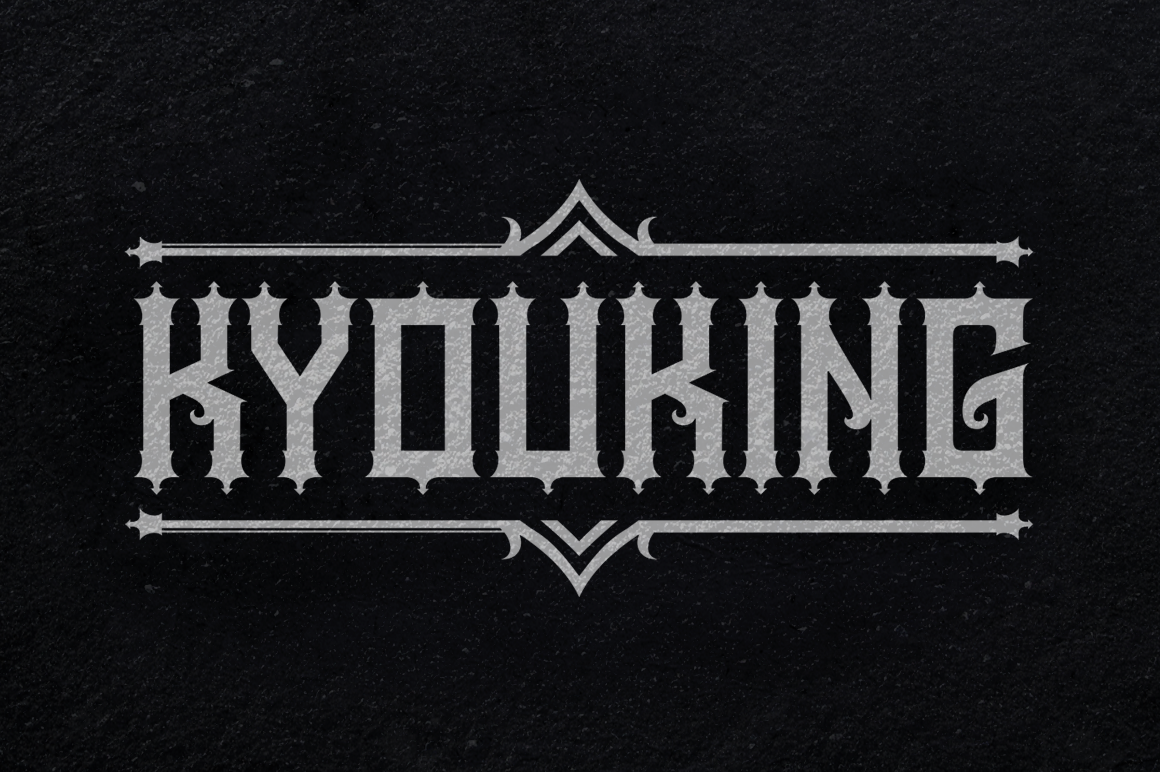
Kyouking Font
The Kyouking design is basically the structural century blend with a modern feel approach to make it a flexible and epic, effective font for the creation of ambitious poster headlines, Book covers, logos and so on.